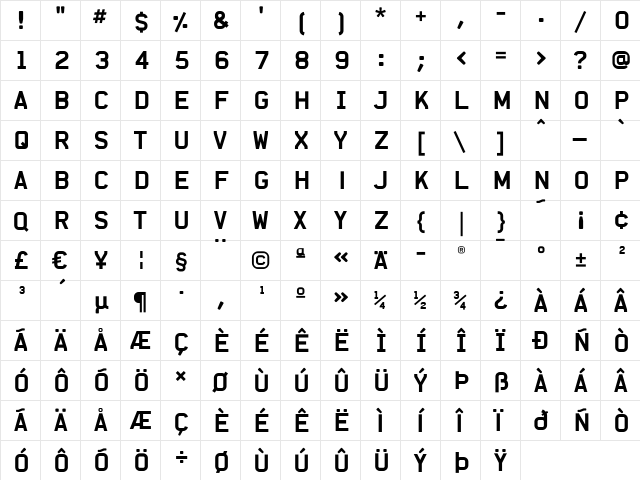
Alpha Regular Font Preview
Alpha Regular
Alpha Regular Font Details
| Foundry | Design: Cornel Windlin \ -https://www.lineto.com |
Design Context for Alpha Typeface
Alpha is a composed and adaptable typeface that performs quietly and consistently across a wide range of design contexts.